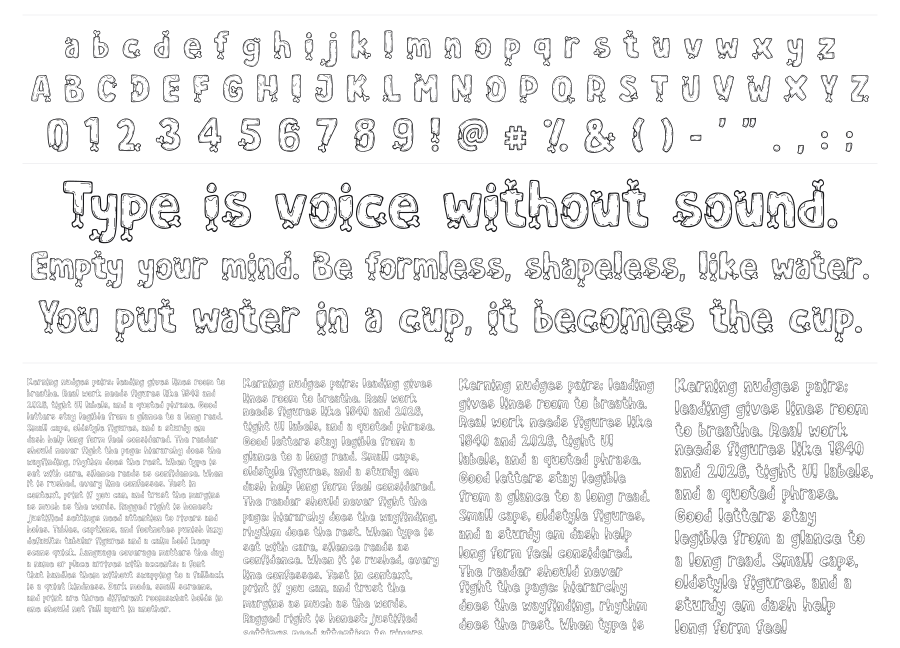
Zoombieland
by Mehibi
Zoombieland is a chunky outlined display font with bone decorations sprouting from the tops of letters, giving it an immediately recognizable zombie-carnival personality. The rough interior edges and irregular outlines keep it feeling hand-crafted rather than mechanically digital. It works best big, where the bone details and textured strokes can actually read.